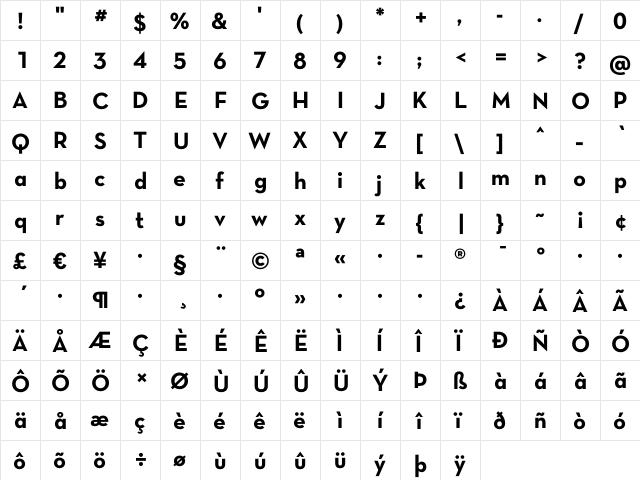
Neutra Text TF Alt Bold
| Designer | Christian Schwartz |
Design Context for Neutra Text TF Alt Typeface
Neutra Text TF Alt offers clean, dependable letterforms without strong stylistic allegiance, making it a practical choice for designers who need flexibility. Its bold stroke weight gives it real presence on the page.